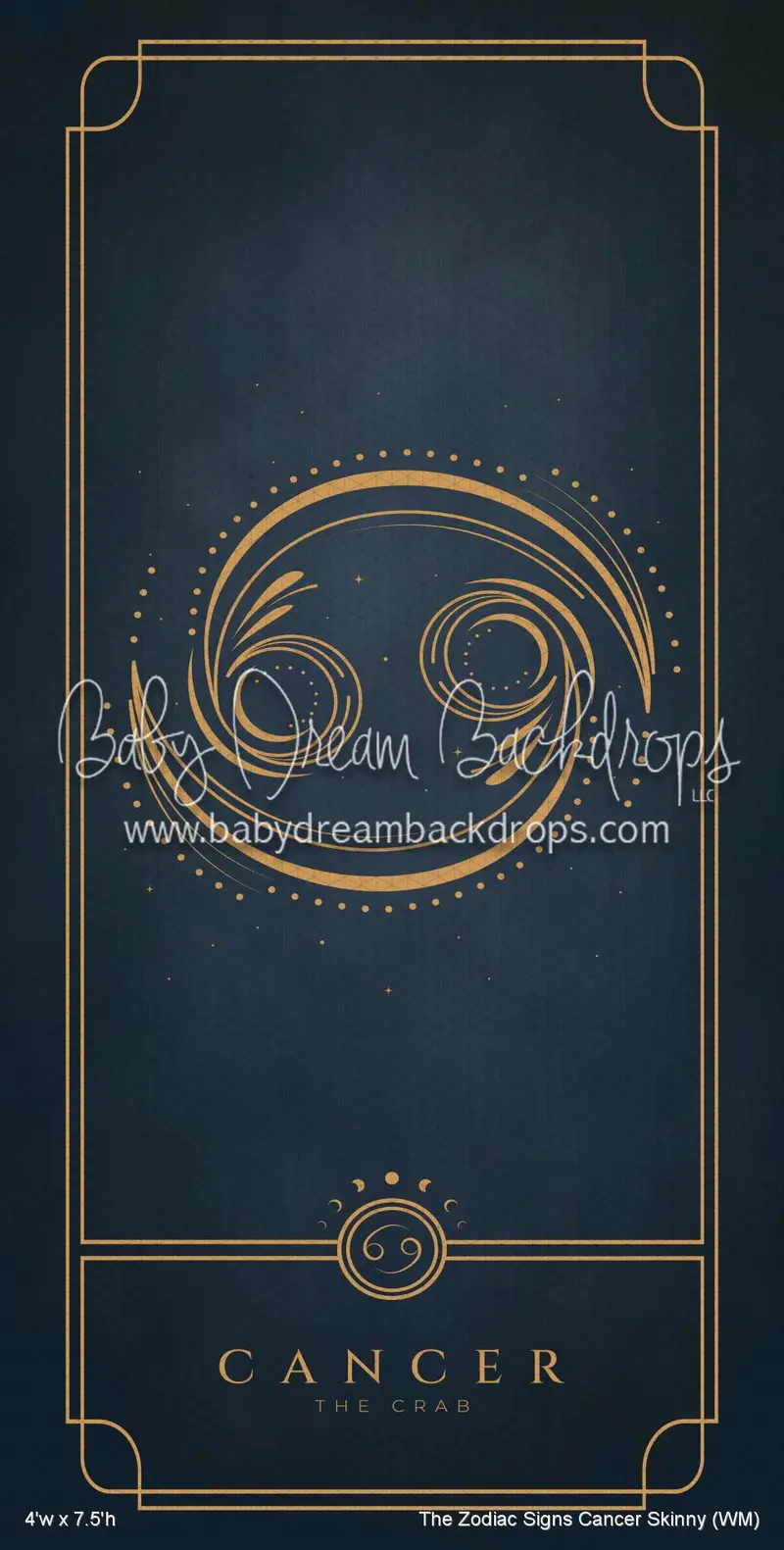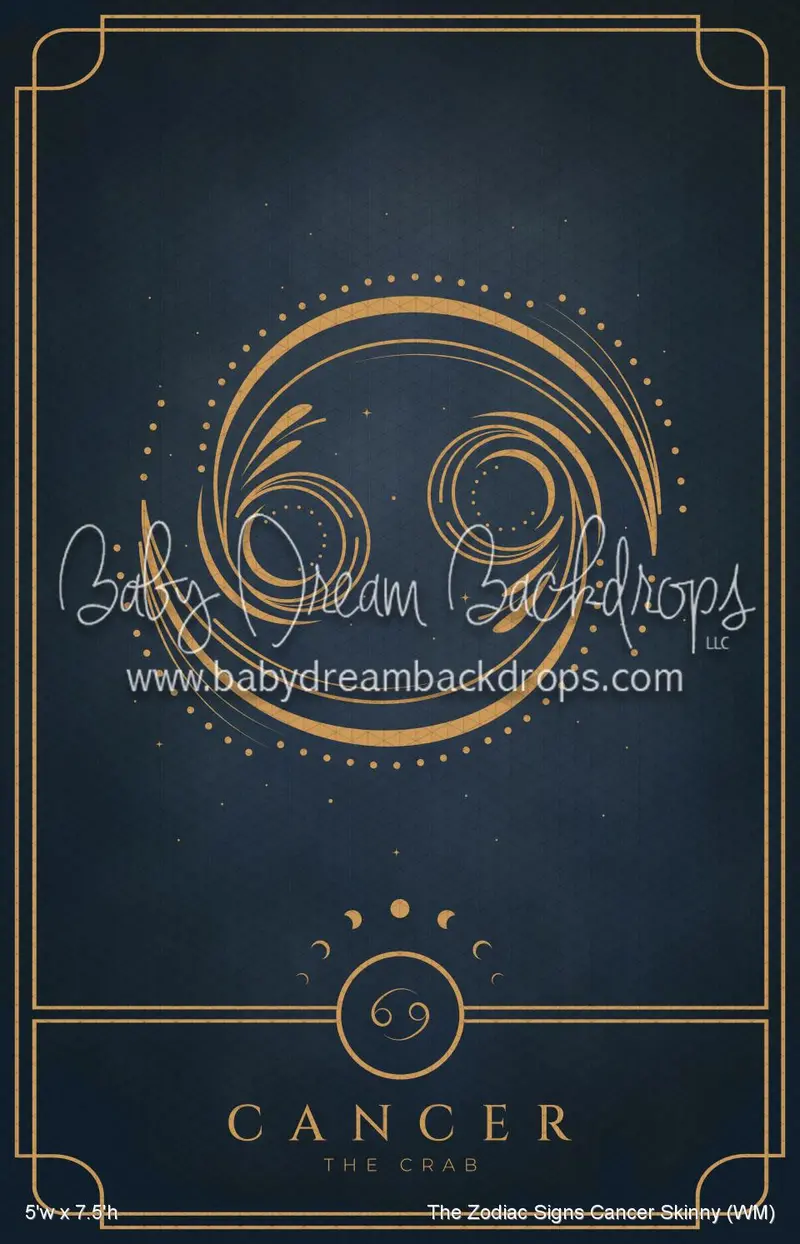
Cancer Zodiac Font – Skinny Weight (Webfont)
🔮 The Zodiac Signs Collection by Whitney Minten 🔮
Begin with the deep, moody elegance of The Zodiac Nocturne in your choice of Standard, Skinny, Sweep or X Drop. Add a Zodiac Sign Skinny that reflects your client’s astrological identity—each one radiating personality and myth. Finish the look with the matching The Zodiac Signs Skinny for a layered, meaningful composition that feels written in the stars.